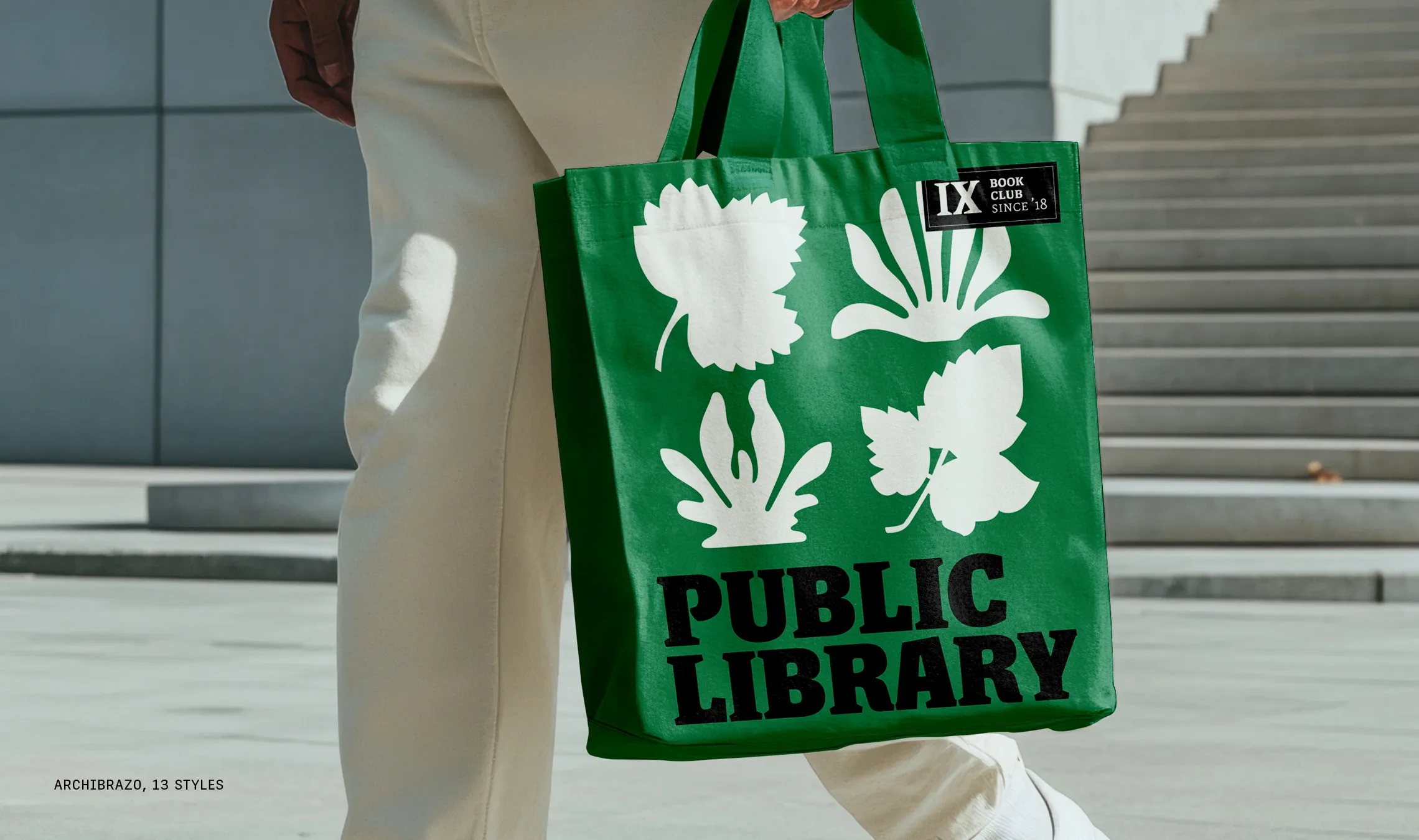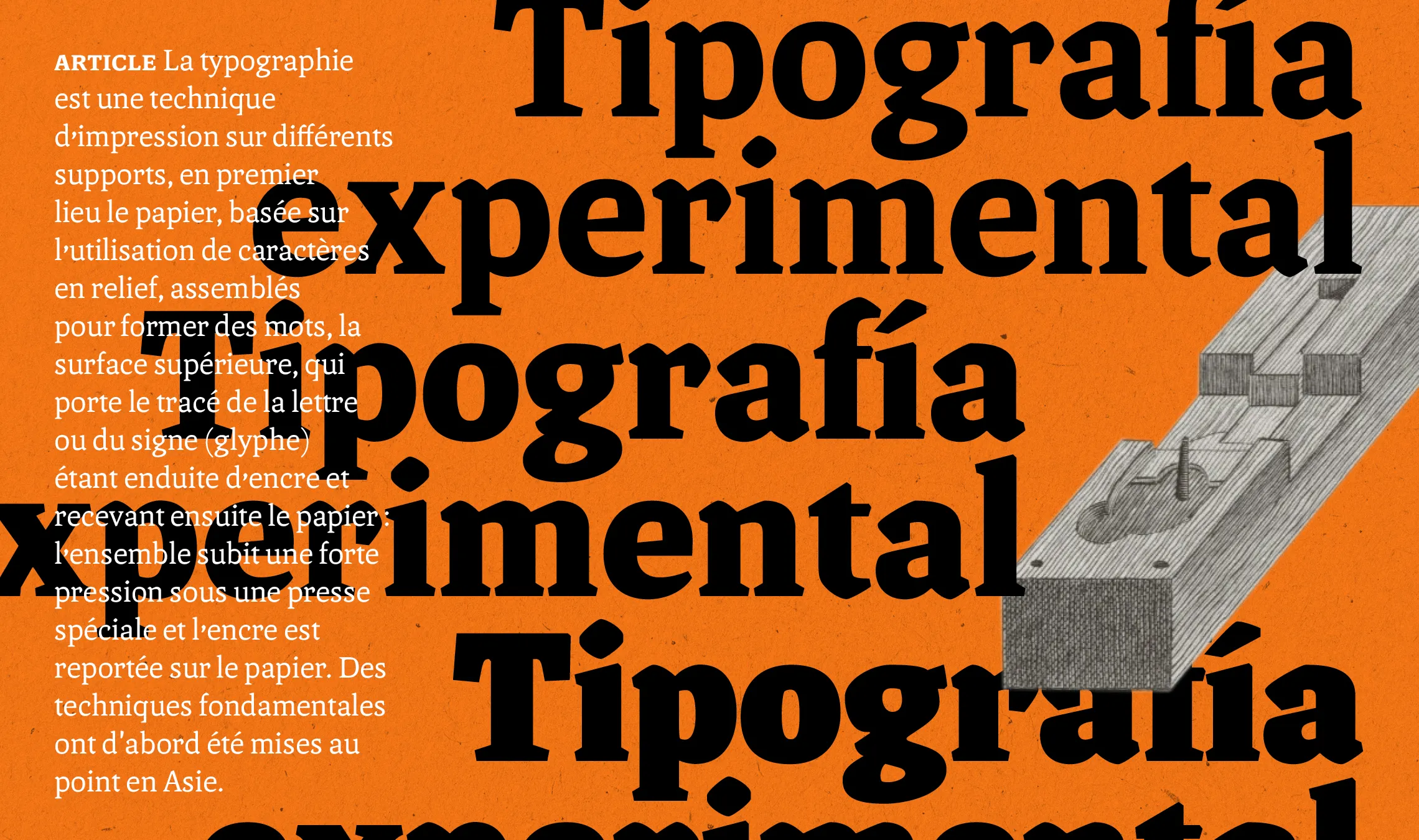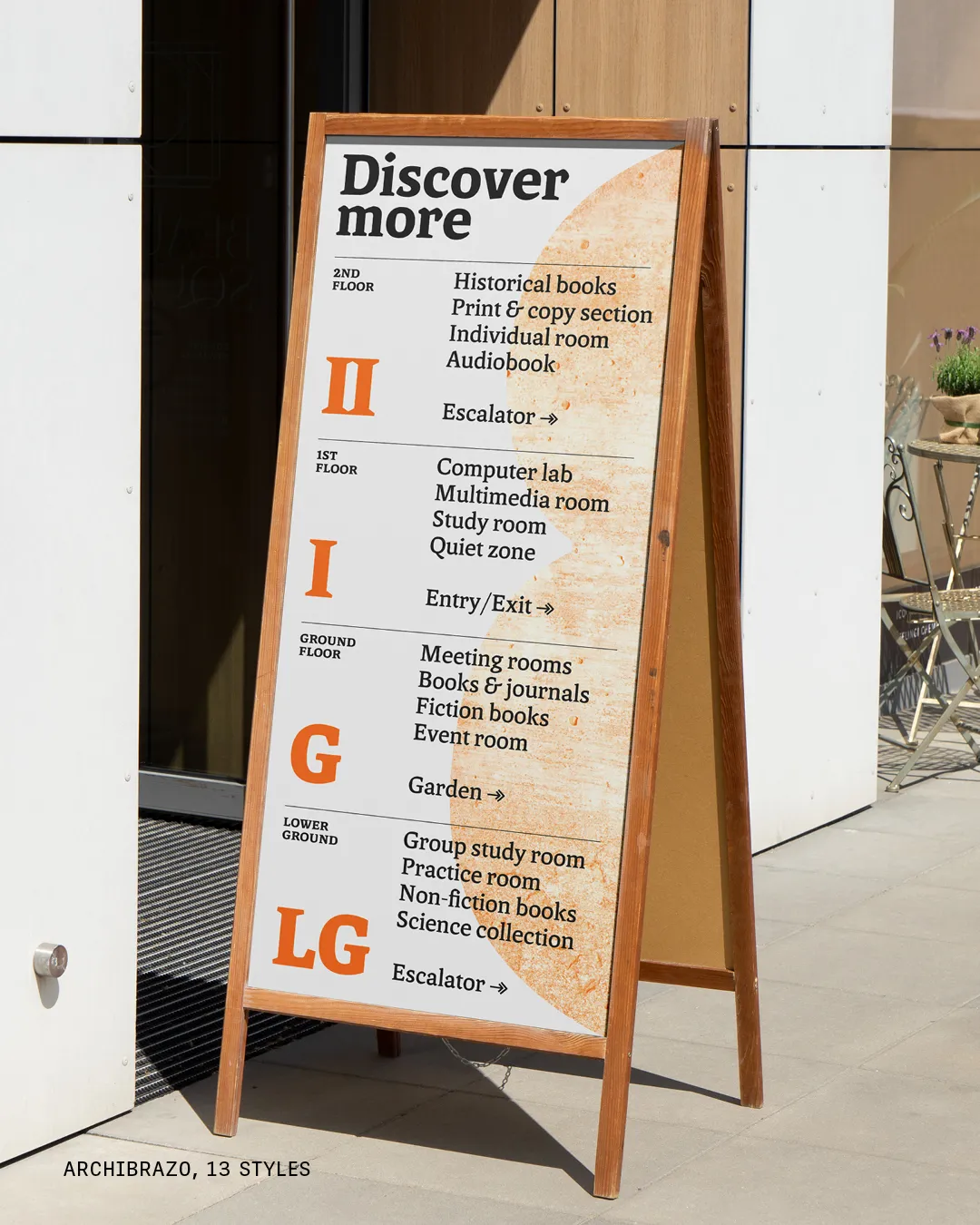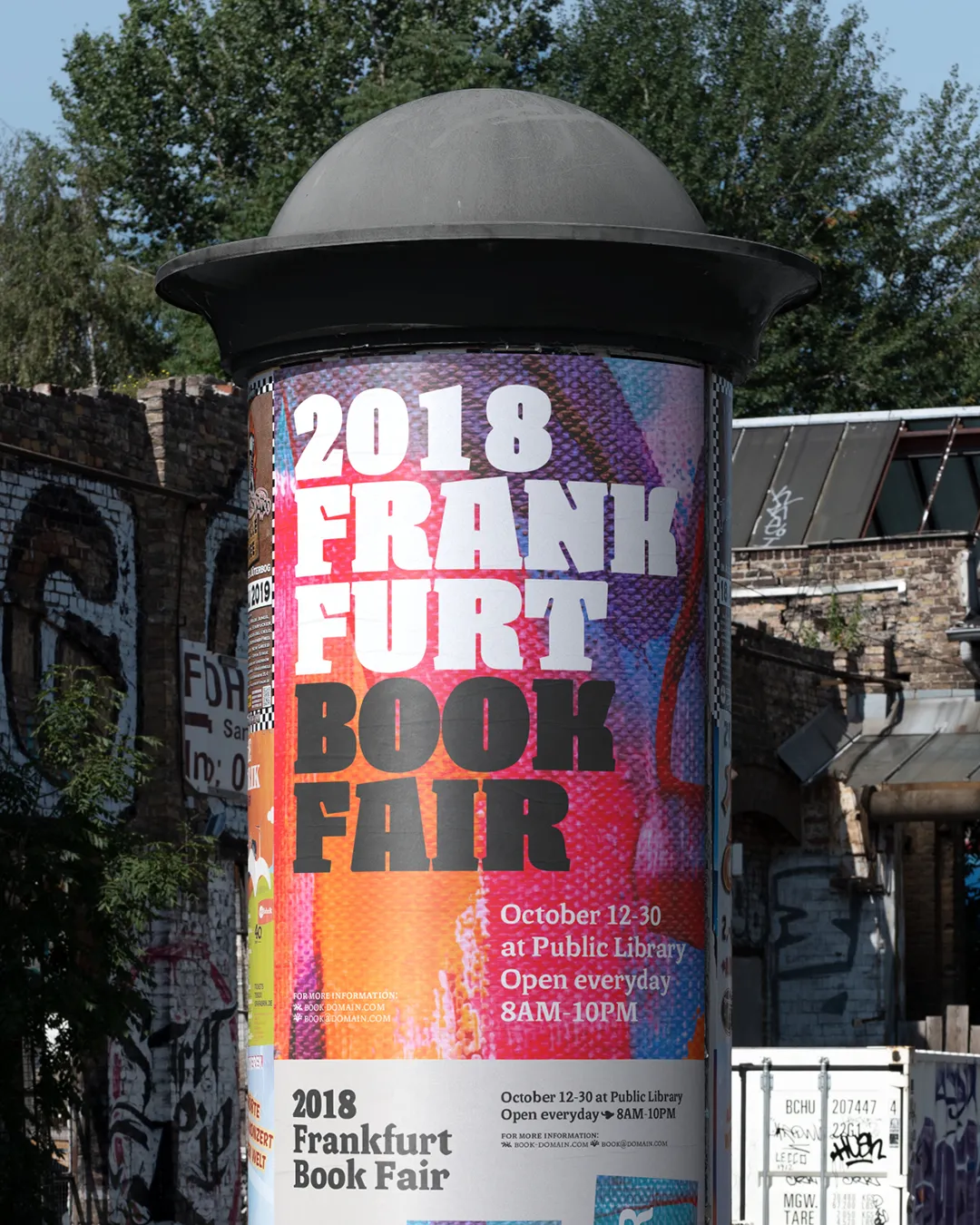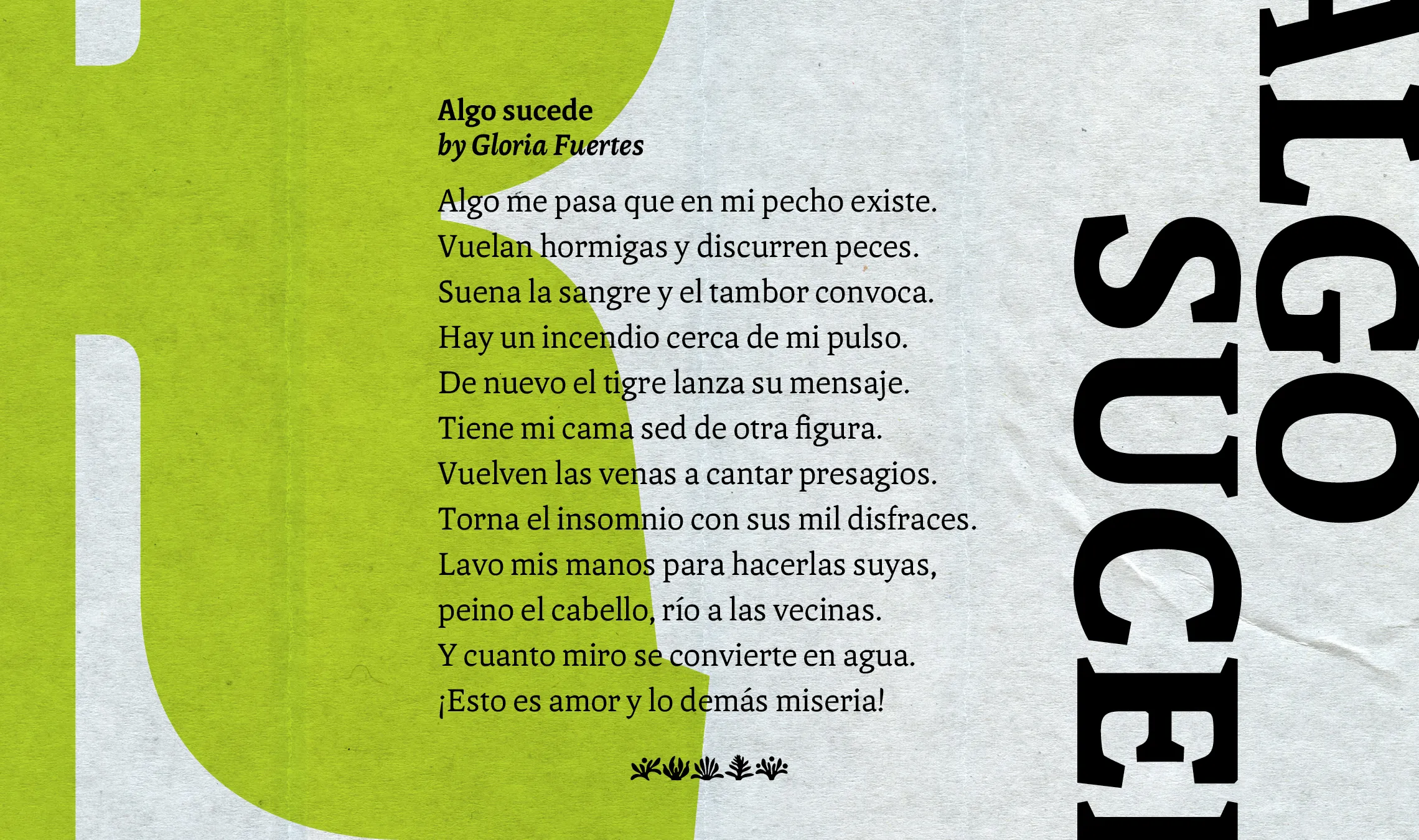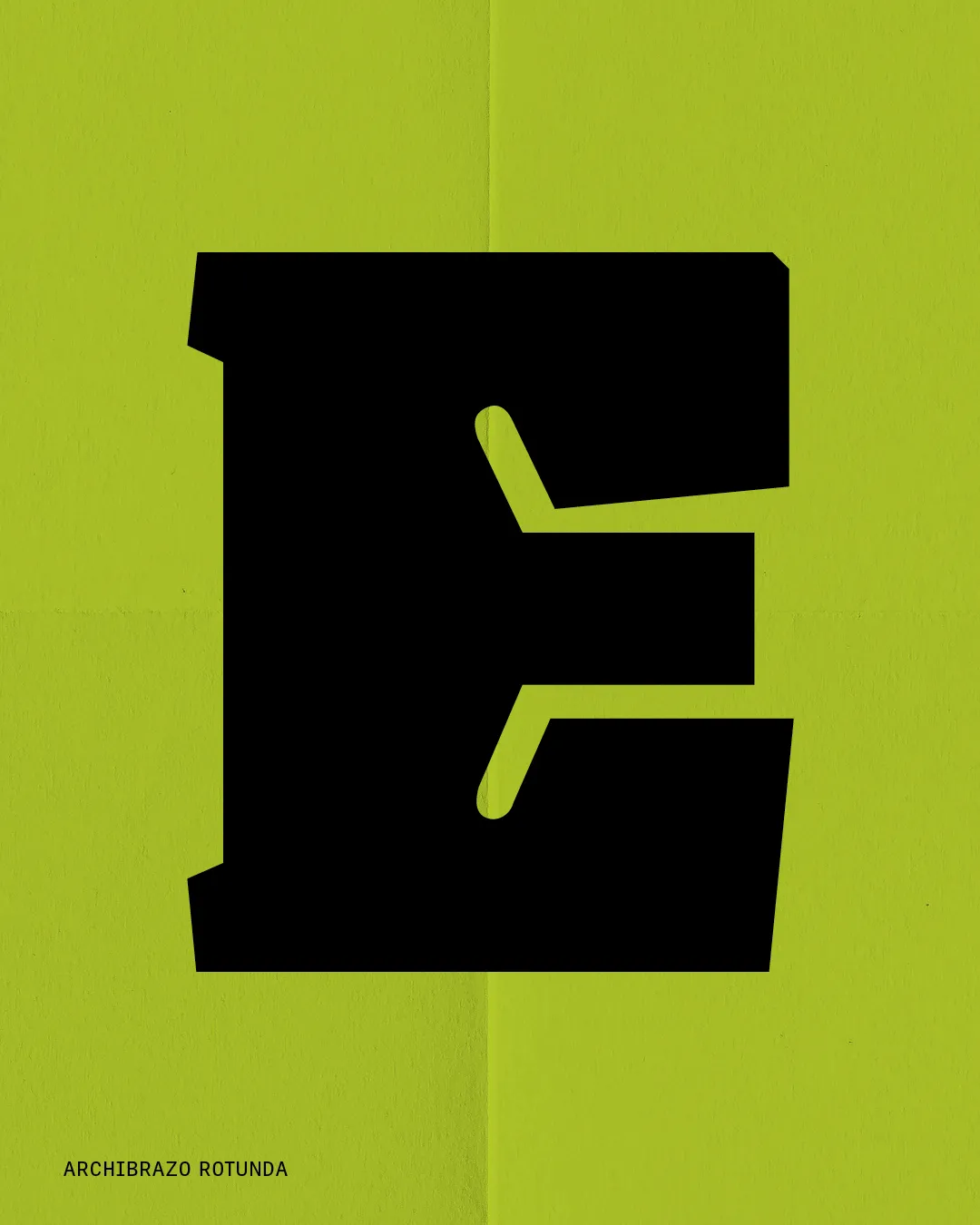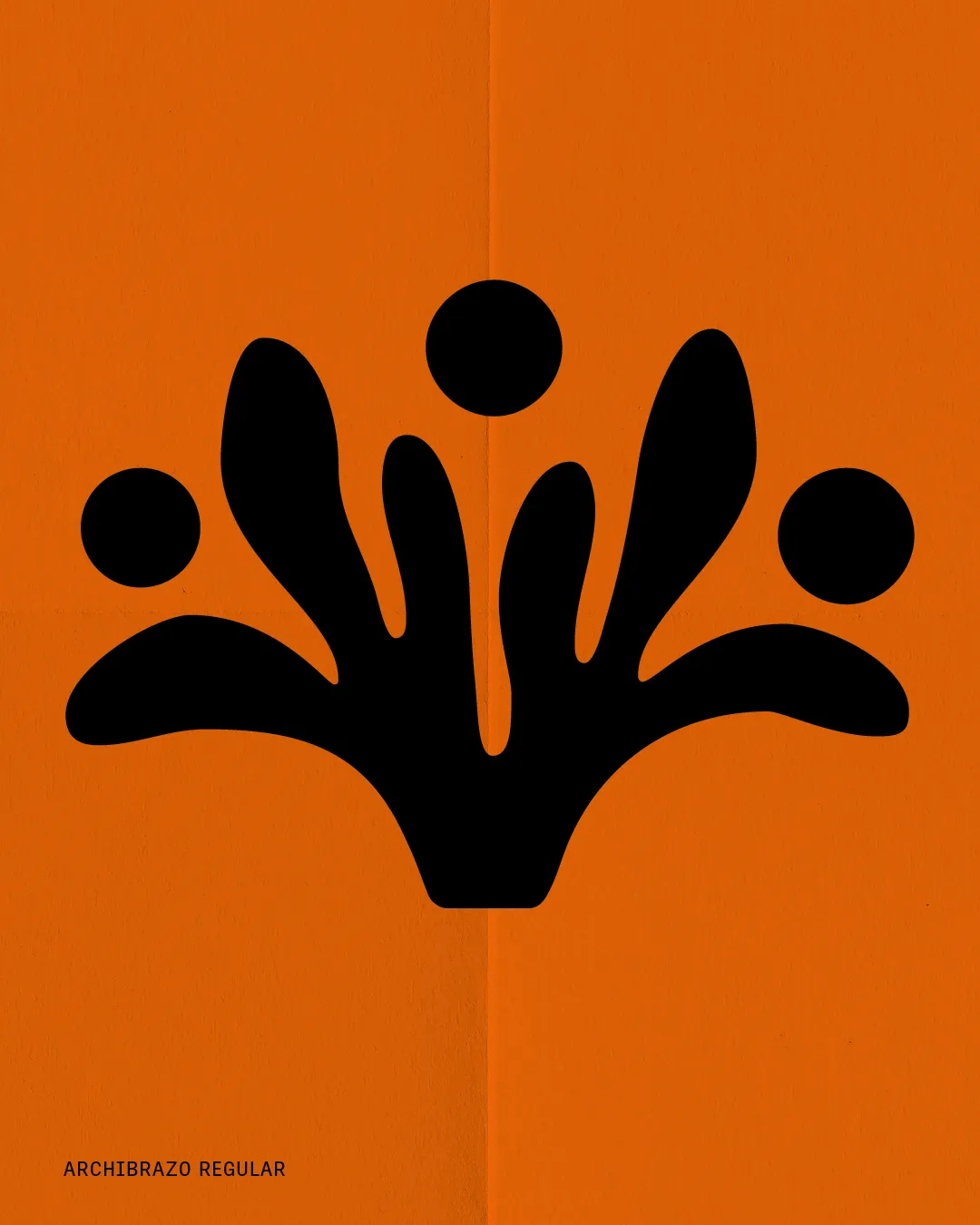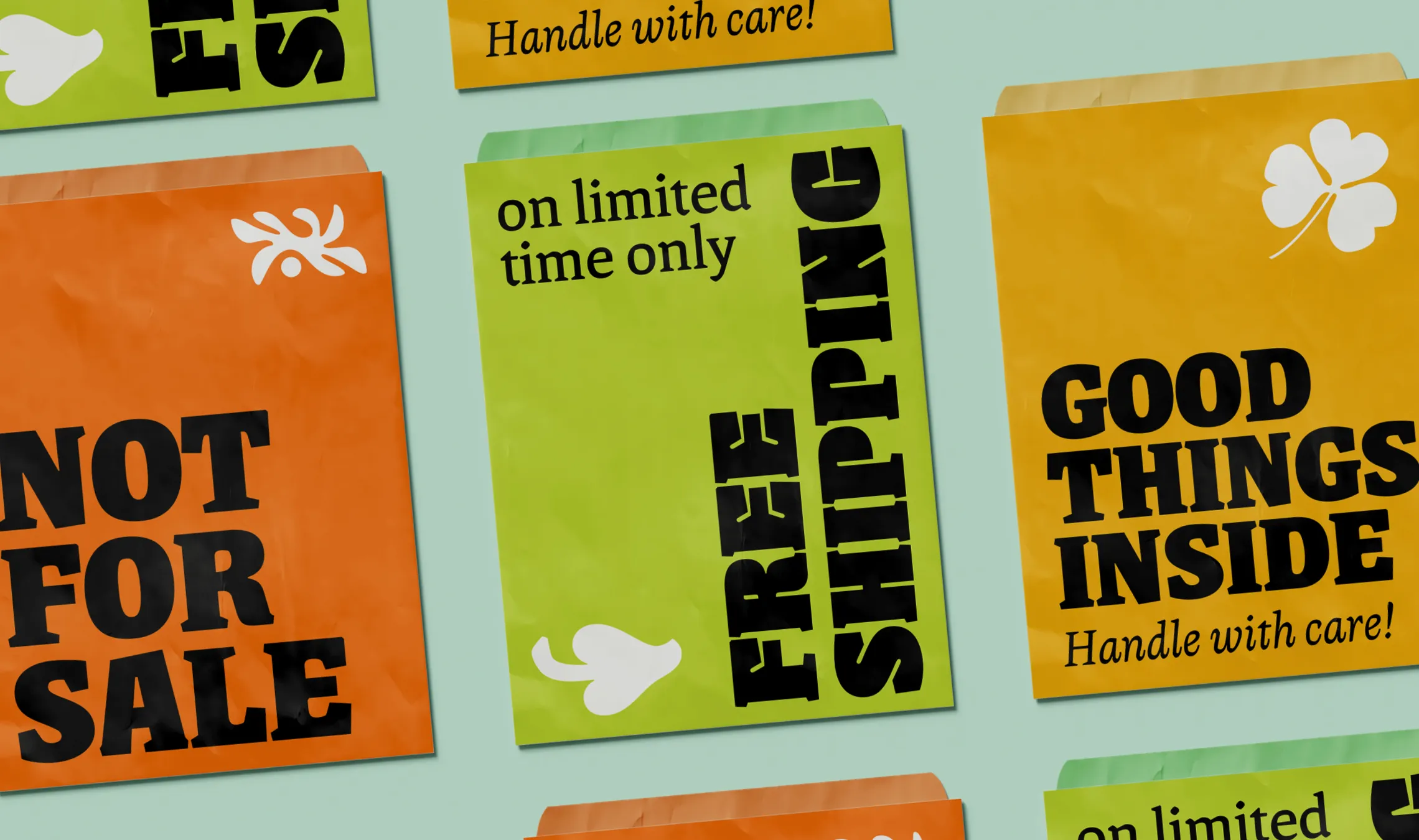
New release: Archibrazo
Master type designer Rubén Fontana’s newest serif family, Archibrazo, is extraordinarily readable in all of its seven weights.
We’re thrilled to announce our first type release of 2026: Archibrazo, by the Buenos Aires-based master type designer Rubén Fontana. His effortlessly readable Archibrazo serif type family comes in seven weights, and it delivers rich texture and typographic colour in paragraphs and striking impact in titles.
Through its seven weights, Archibrazo reveals its character, gracefully shifting from thoughtful restraint to sculptural presence. In its lighter weights, it’s a masterclass in rhythm and spatial balance, weaving texture and tone to sustain long-form reading without fatigue. As the weight builds, the forms thicken but never overreach; compression becomes a design virtue, letting text feel full yet impeccably composed. Then comes Archibrazo Rotunda, where Fontana transforms geometry into sculpture—the interiors of each letter feel carved by light, not ink. Compact and confident, the Extrabold and Rotunda styles channel that same precision into branding and signage, where impact and sophistication share the same line.
Rubén Fontana is an Argentine graphic designer, typographer, and educator, and has led his successful FontanaDiseño studio for over 40 years. Archibrazo is the second type family designed by Fontana released by TypeTogether; the first was Chaco in 2024. “When it comes to design and typography in the Spanish-speaking world and beyond, Rubén Fontana is an icon,” explains TypeTogether co-founder José Scaglione. Fontana has taught generations of typographers and graphic designers at the University of Buenos Aires, and founded and directed the long-running and respected magazine tipoGráfica.